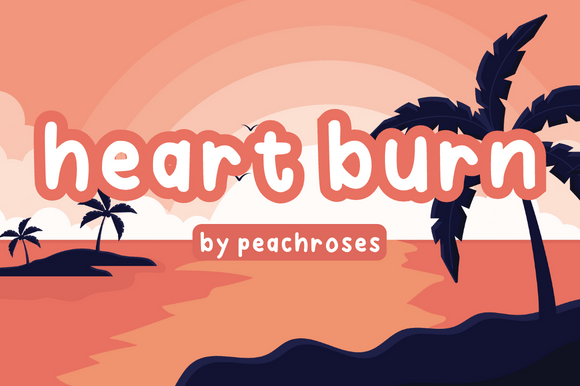
Ignite your designs with the Heart Burn font, a creation of FolieDesign, and unveil a world of captivating aesthetics. This display font exudes an aura of warmth and approachability, making it the perfect choice for designers seeking to create a lasting impression.
With its playful and easy-to-read style, Heart Burn captivates the eye. Whether you're crafting digital designs, creating presentations, or designing greeting cards, this font has the versatility to elevate your work to new heights. Its friendly and inviting nature makes it a perfect fit for a variety of projects, from playful invitations to heartwarming social media posts.
Immerse yourself in the charm of Heart Burn and discover a font that breathes life into your creative endeavors. Its distinct character adds a personal touch to your designs, making them stand out from the crowd. Embrace the endless possibilities that await you with Heart Burn and let your imagination run wild.